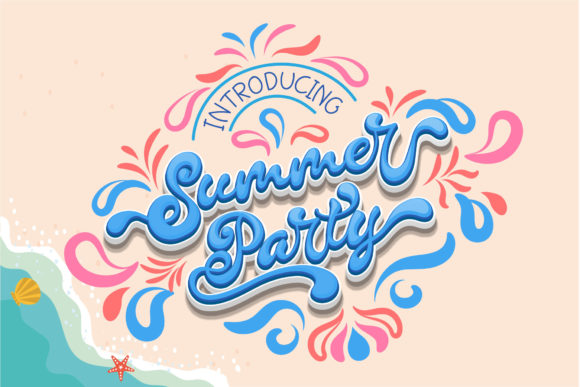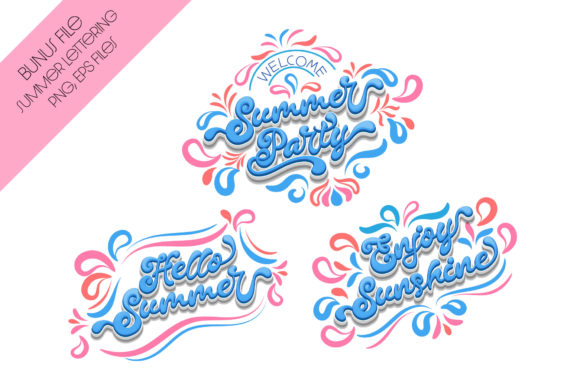
About Summer Party Font
Summer Party is a whimsical, romantic and chic handwritten font. This font is PUA encoded which means you can access all of the amazing glyphs and ligatures with ease! Fall in love with its incredibly versatile style and use it to create spectacular designs!